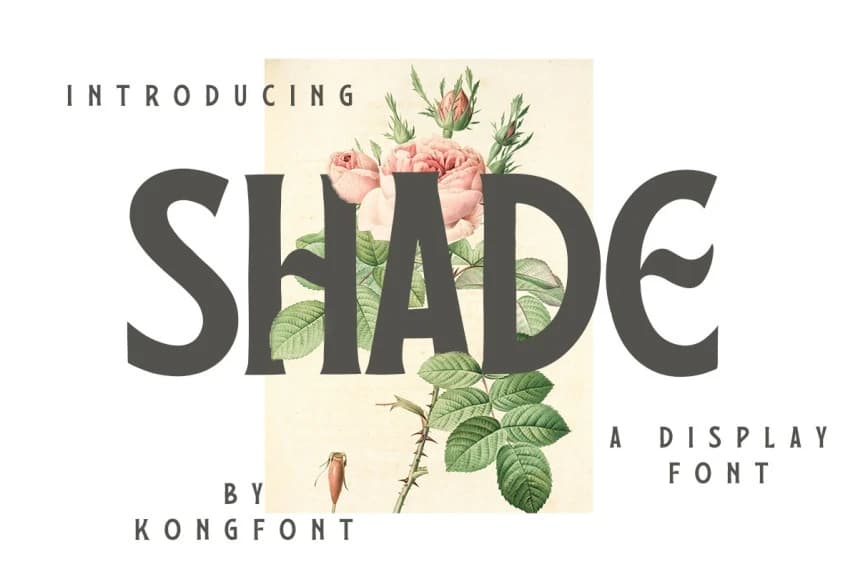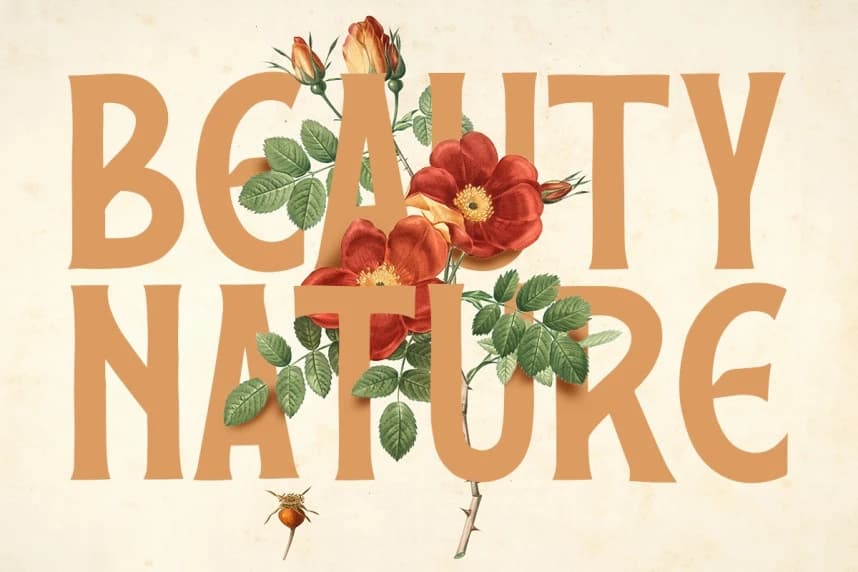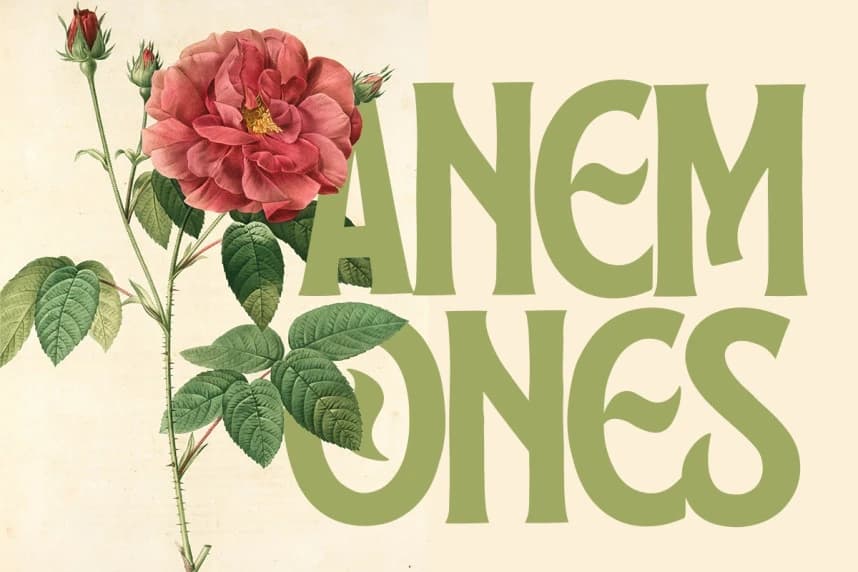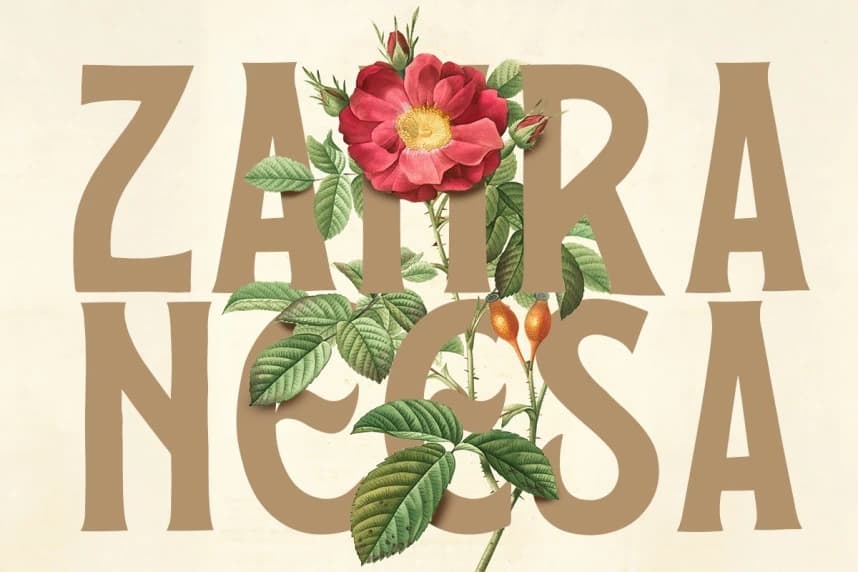
Shade Font
Shade Font A Modern Display Font As the name suggests, Shade A Modern Display Font is a typeface that exudes beauty and is most elegant. Easy to read yet artistic, this font can serve multiple uses depending on the user.